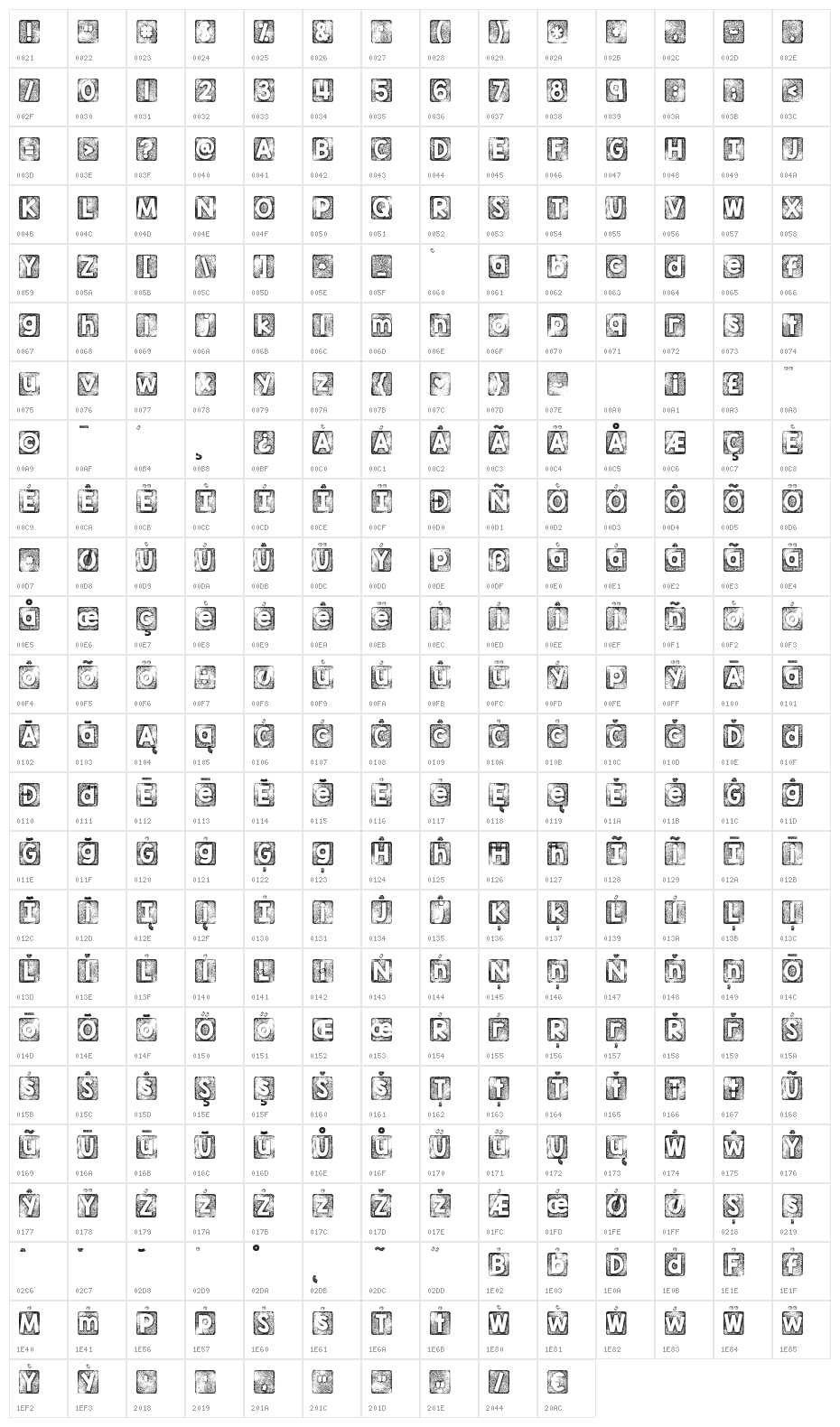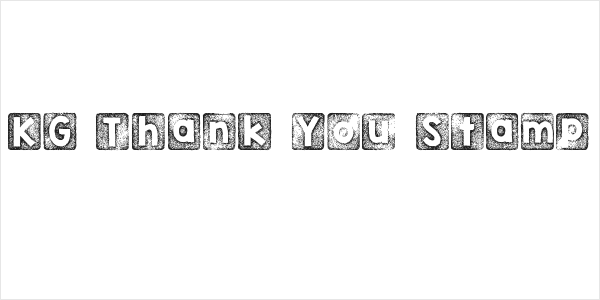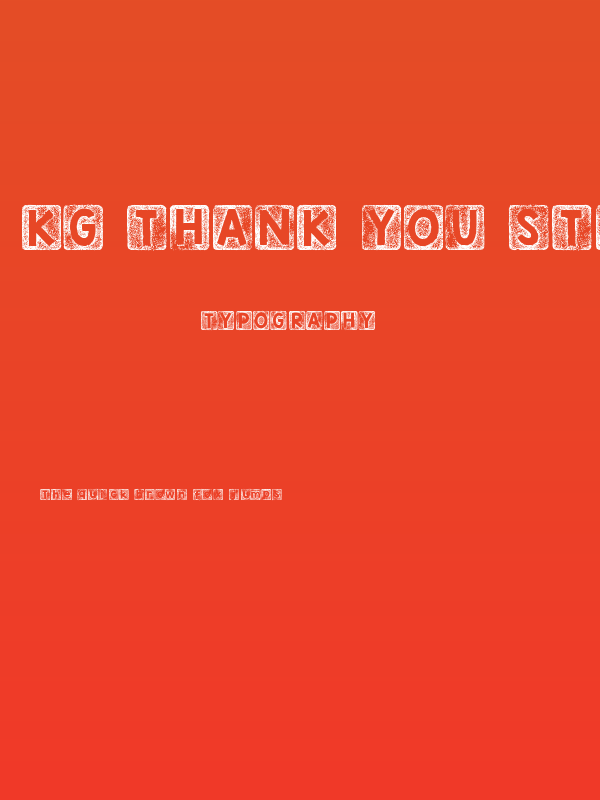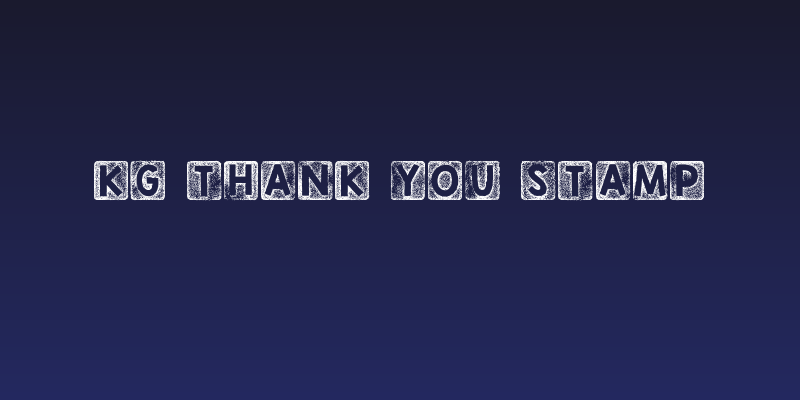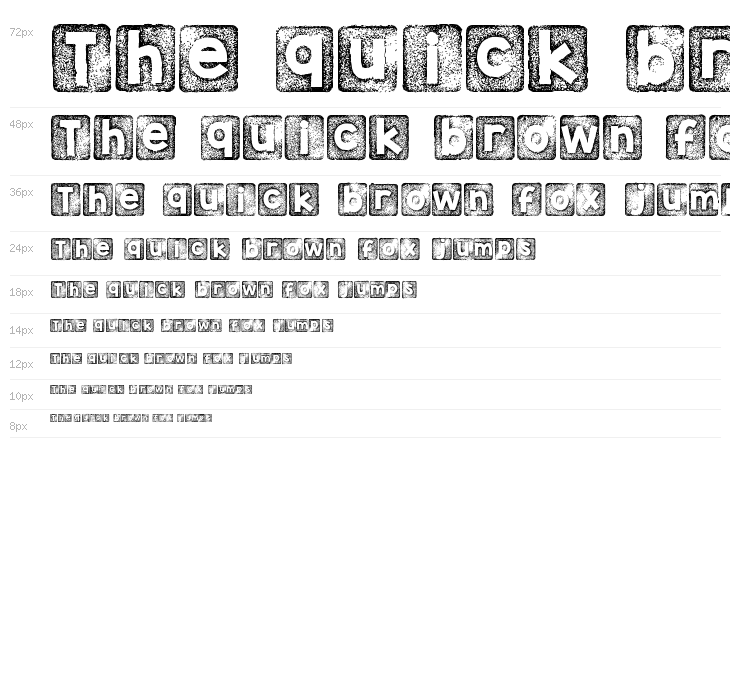
KG Thank You Stamp Font
KG Thank You Stamp Description
This font features a bold, playful style with a distressed texture that gives it a vintage, stamped appearance. Each character is enclosed in a square, adding to its unique and decorative look. The uppercase and lowercase letters maintain a consistent design, with rounded edges and a slightly uneven baseline, enhancing its handcrafted feel. The numbers and special characters follow the same aesthetic, making it suitable for creative and informal projects. The font's distinct style is eye-catching and ideal for designs that require a touch of whimsy and nostalgia.
Overall StyleVintage, Decorative
Proposed ProjectsIdeal for greeting cards, scrapbooking, posters, and playful branding projects.